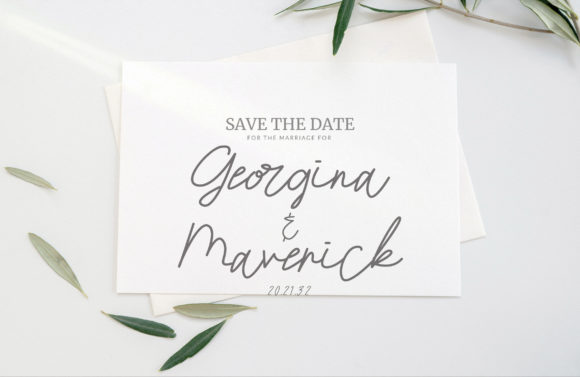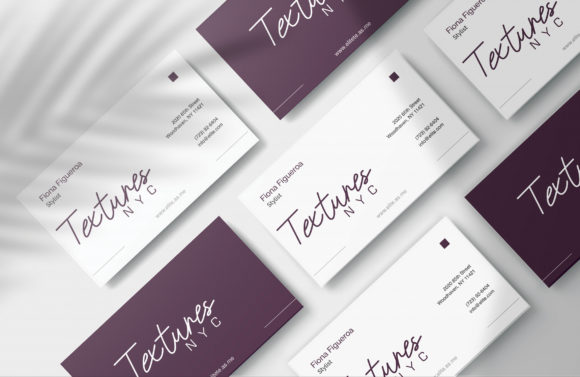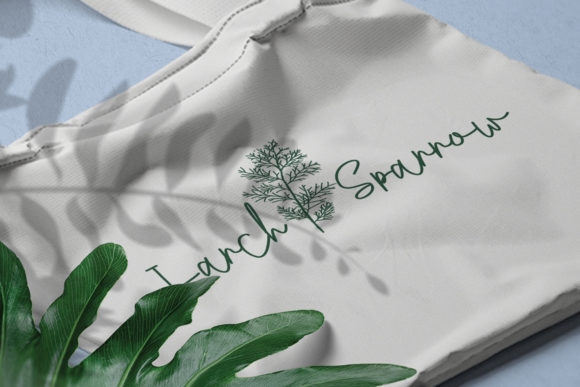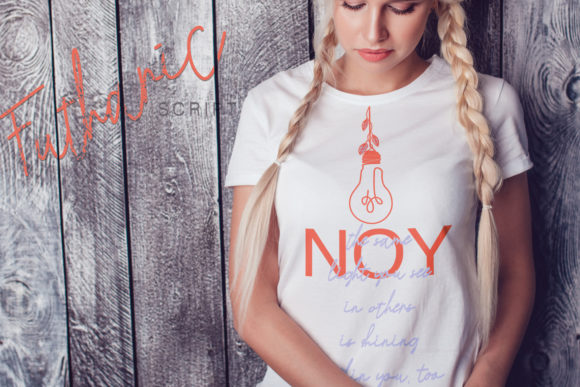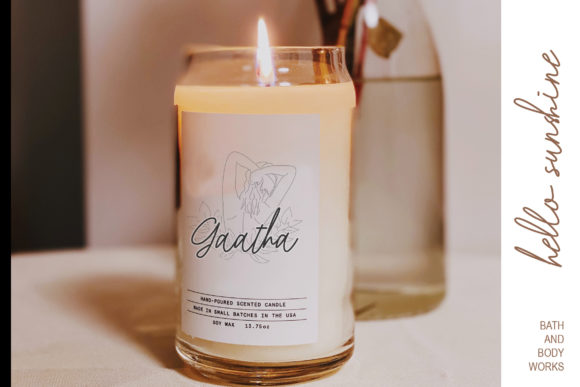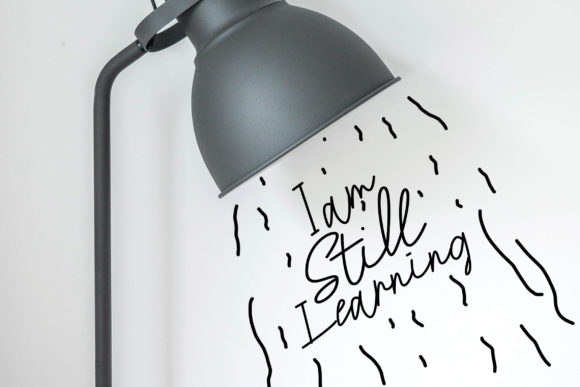
The Futharic Font: A Handwritten Gem for Creative Projects
I’ll never forget the time I was working on a greeting card design project, and I just couldn’t seem to find the perfect font. My client wanted something unique, yet elegant; something that would make their card stand out from the rest. That’s when I stumbled upon the Futharic font, and let me tell you, it was love at first sight! 💕
As a designer, I’m always on the lookout for fonts that can help me create stunning designs with minimal effort. And Futharic delivers! This handwritten font is incredibly versatile, making it perfect for a wide range of creative projects, from crafting and digital designing to presentations and greeting card making.
An Honest Review of Futharic Font
What I Love About Futharic Font ✨
- 💫 Unique and elegant handwritten style that’s perfect for making a statement
- ✅ Highly versatile and adaptable to different design contexts
- 🎨 Beautifully crafted to add a touch of personality to any design
- 👍 Easy to read and understand, even in smaller font sizes
- ⚠️ Some users may find the font a bit too ornate for very formal or traditional designs
- 🤔 Limited availability of certain OpenType features, such as ligatures and stylistic alternates
The Story Behind Futharic Font
Futharic font was designed by a talented type designer who wanted to create a unique, handwritten font that would capture the essence of creative expression. Inspired by traditional calligraphy and modern digital design, Futharic font is the perfect blend of elegance and playfulness.
| Font Name | Futharic Font |
| Author | Sutype |
Q: What is Futharic font?
Futharic font is a unique, handwritten font that’s perfect for creative projects, from crafting and digital designing to presentations and greeting card making.
Q: Is Futharic font easy to read?
Yes, Futharic font is designed to be easy to read, even in smaller font sizes. Its elegant, cursive style makes it perfect for designs that require a touch of sophistication.